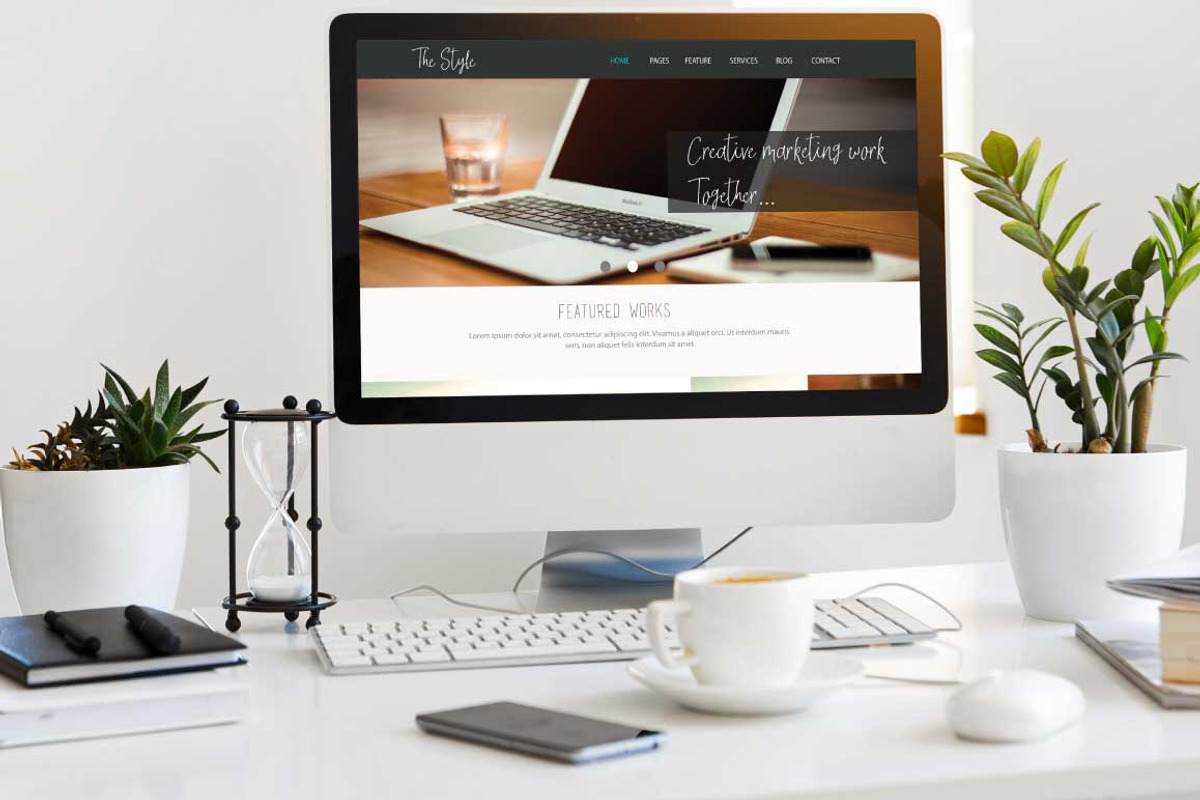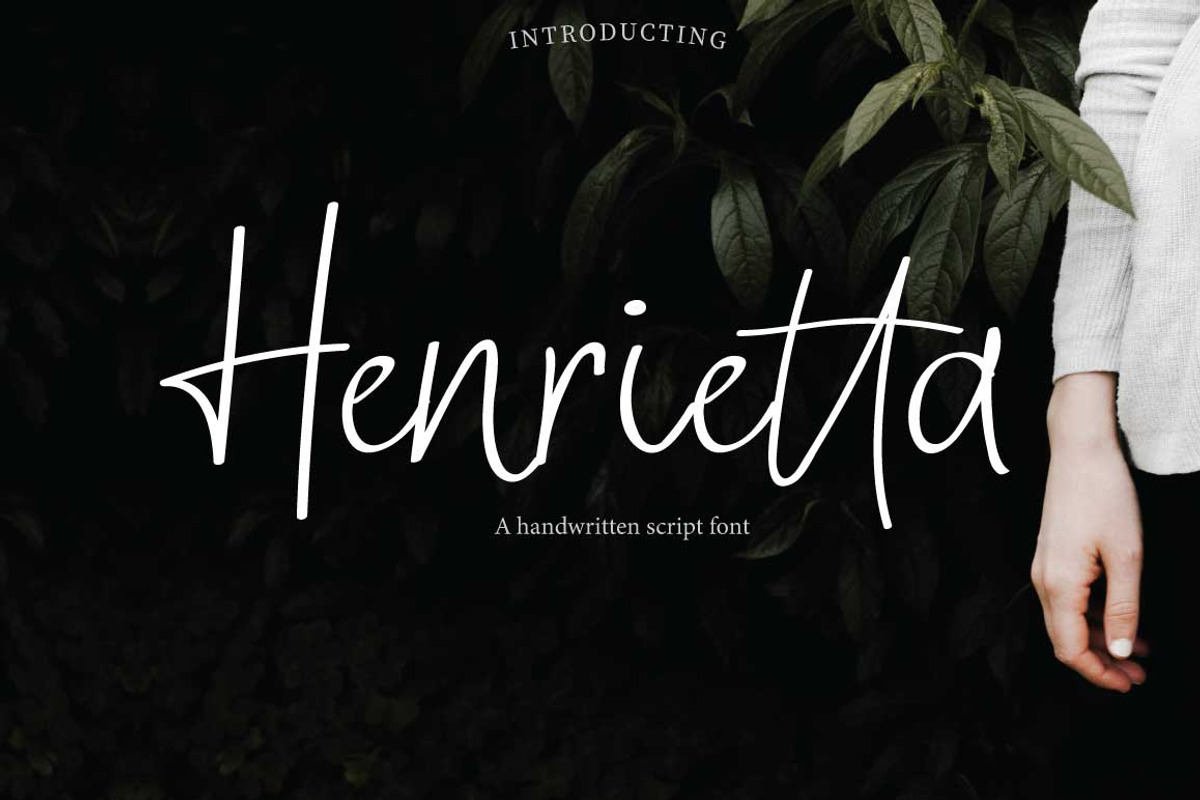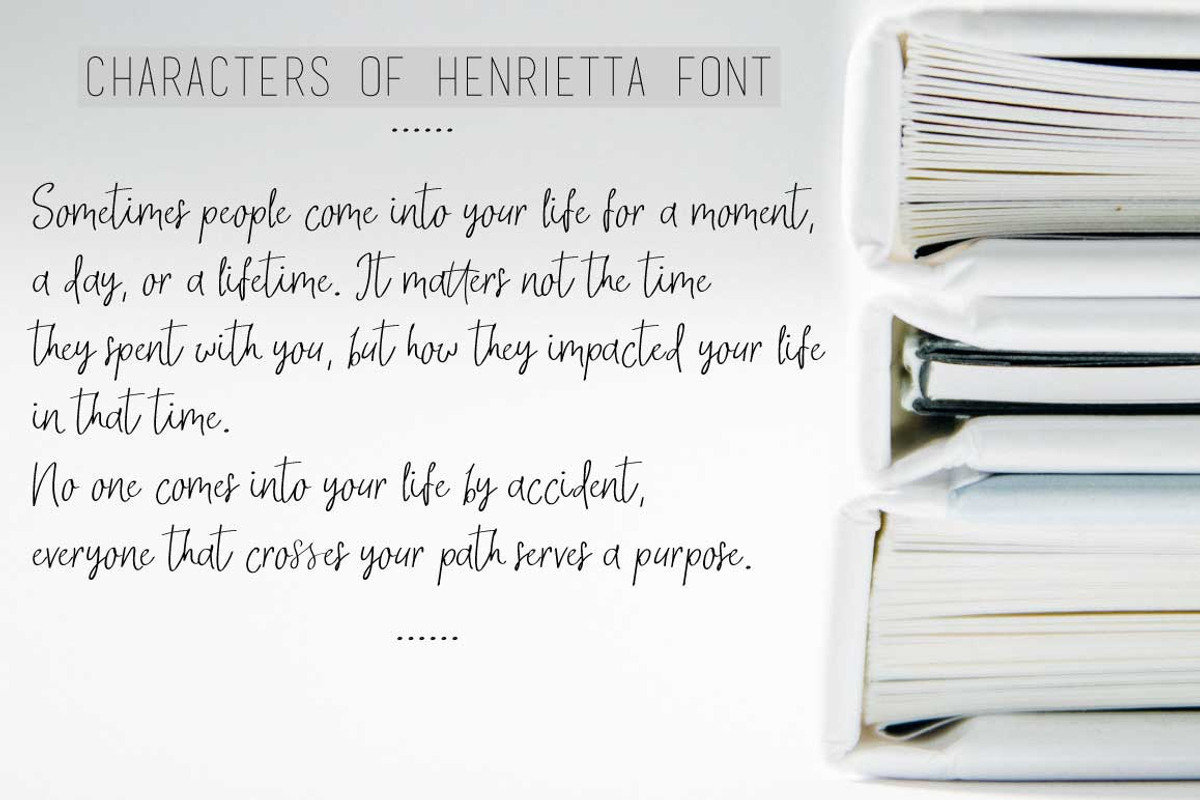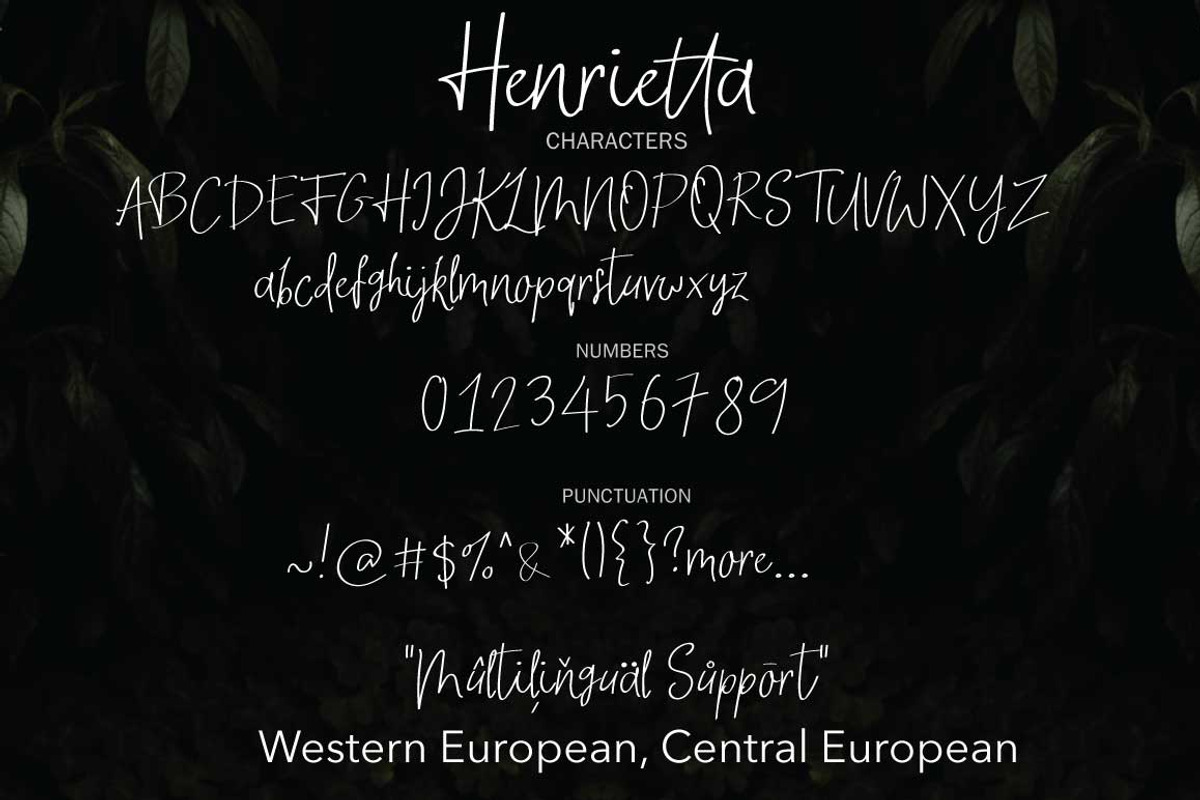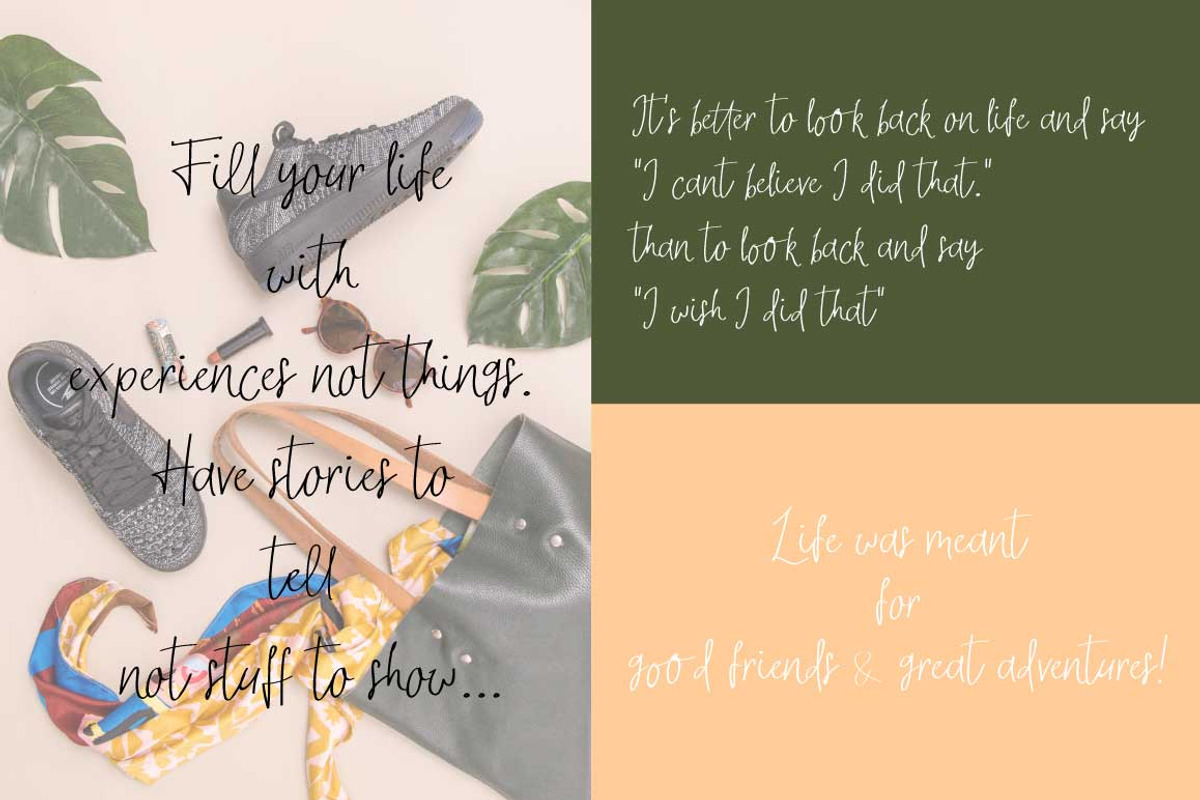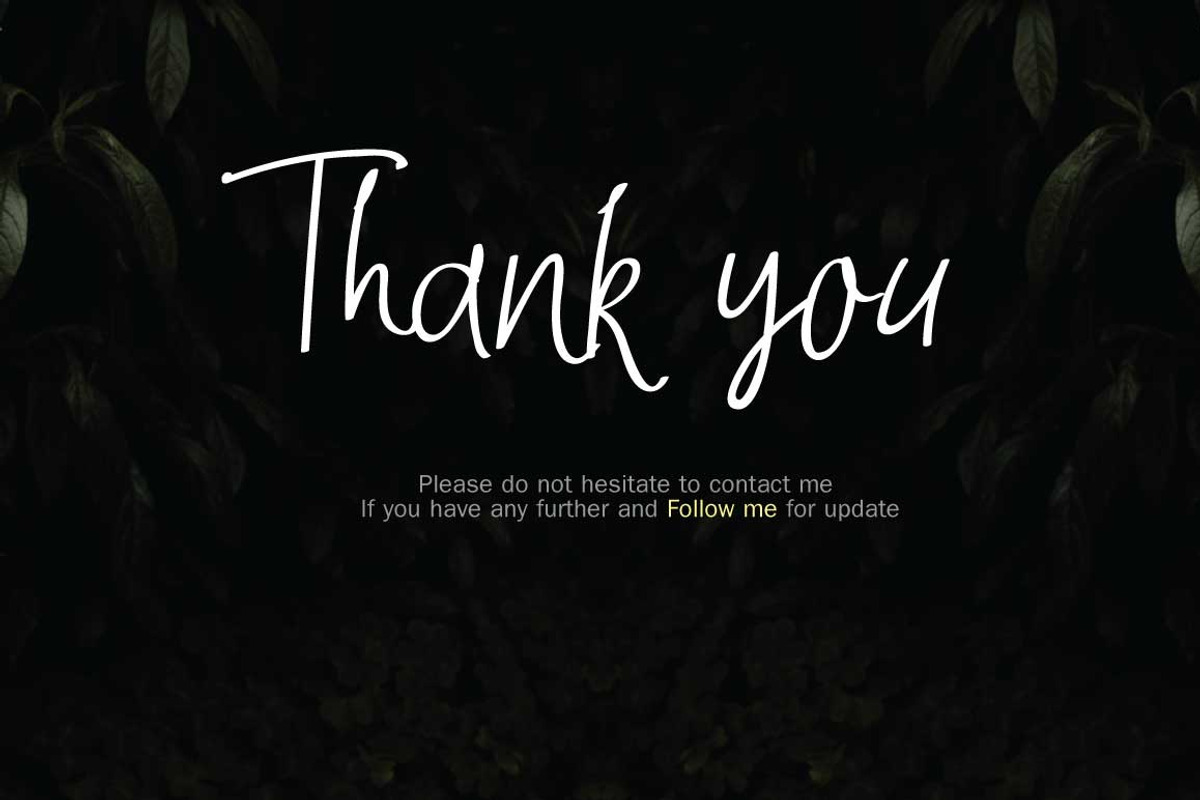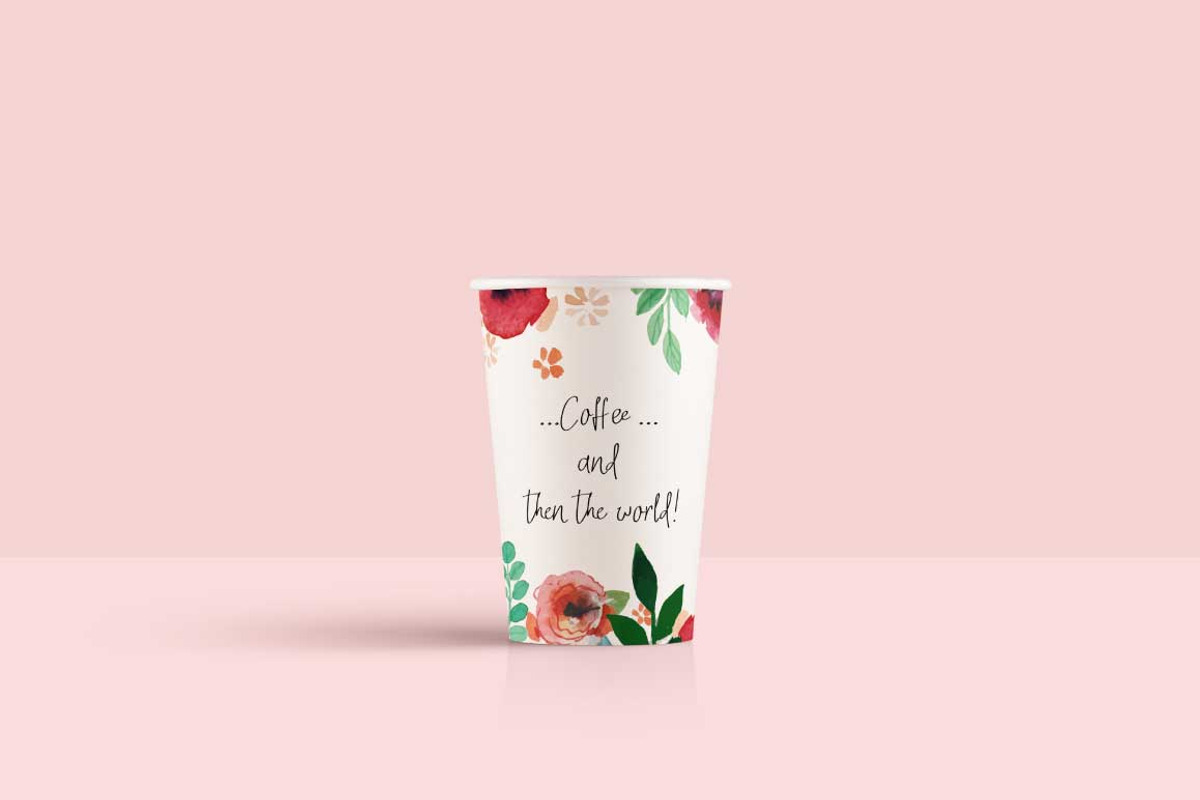
New! Henrietta | Signature Font
Henrietta is a handwritten signature font
It looks chic up by each character, perfect for wedding invitation or your blog, social media posts, and messages. Or just use for your small business, book covers, stationery and more.
Multilingual support is included for Western European and Central European Languages. Please test your characters in the font previewer below before purchase.